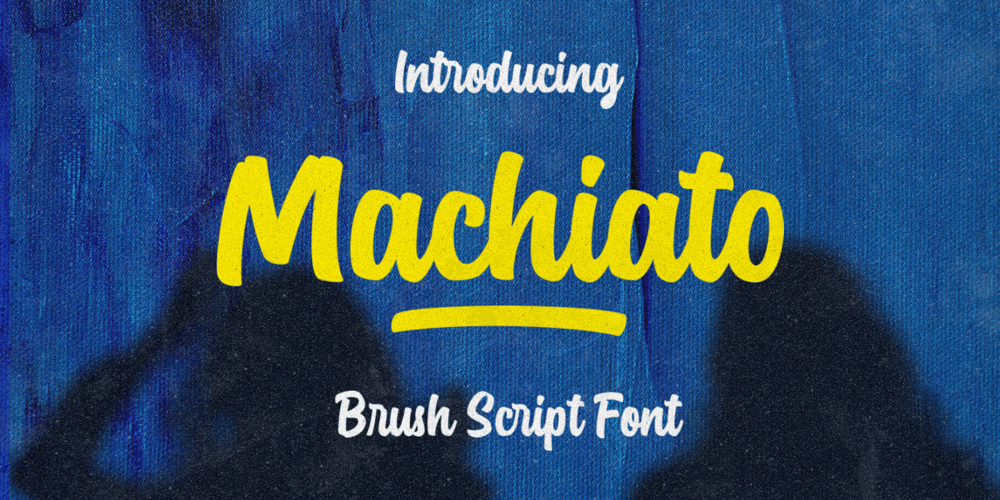
Machiato
Machiato font
Machiato Font Family was designed by Hendry Juanda and published by Letterhend. Machiato contains 1 styles and family package options. Machianto is a bold brush script which is purposely made for headline, display or logotype and the other various formal forms such as invitations, labels, logos, magazines, books, greeting / wedding cards, packaging, fashion, make up, stationery, novels, labels or any type of advertising purpose.Features : Uppercase & lowercase Numbers and punctuation Alternates/Ligatures Multilingual PUA encoded